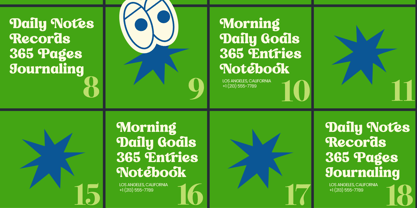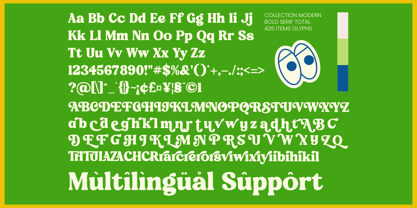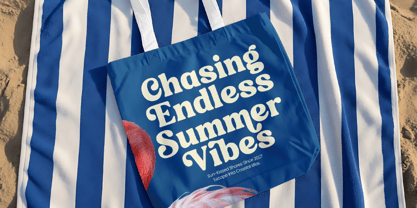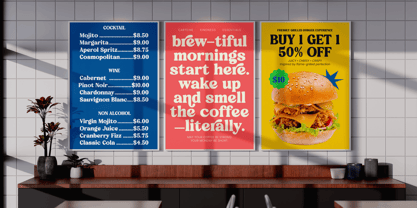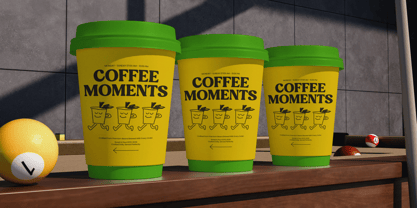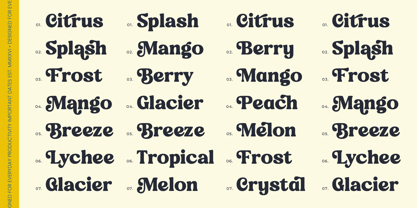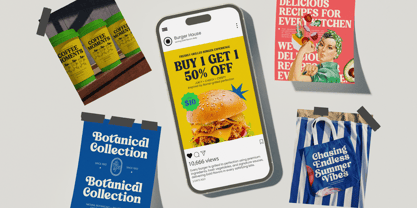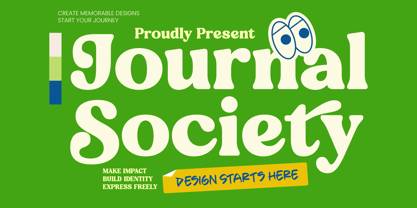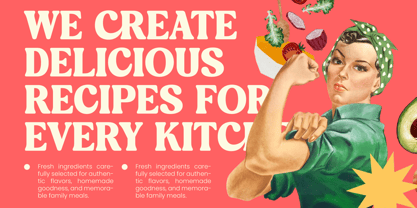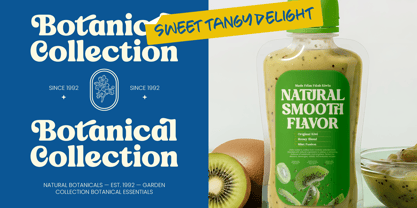
Journal Society
The Journal Society Font Family was designed by Heru Utama Putra and published by Timelesstype Studio. Journal Society contains 2 styles and family package options. More about this family
Experience the perfect blend of playfulness and sophistication with Journal Society - Modern Bold Serif, a typeface designed to make your words sing with character. It is an invitation to elevate your creative projects through a lens of contemporary charm and timeless elegance.
Inspired by the vibrant energy of vintage editorial layouts and the organic flow of hand-lettered journals, this font captures the essence of a high-end lifestyle. It draws from the golden age of bold typography, reimagined for the modern-day storyteller who values a unique, artisanal touch.